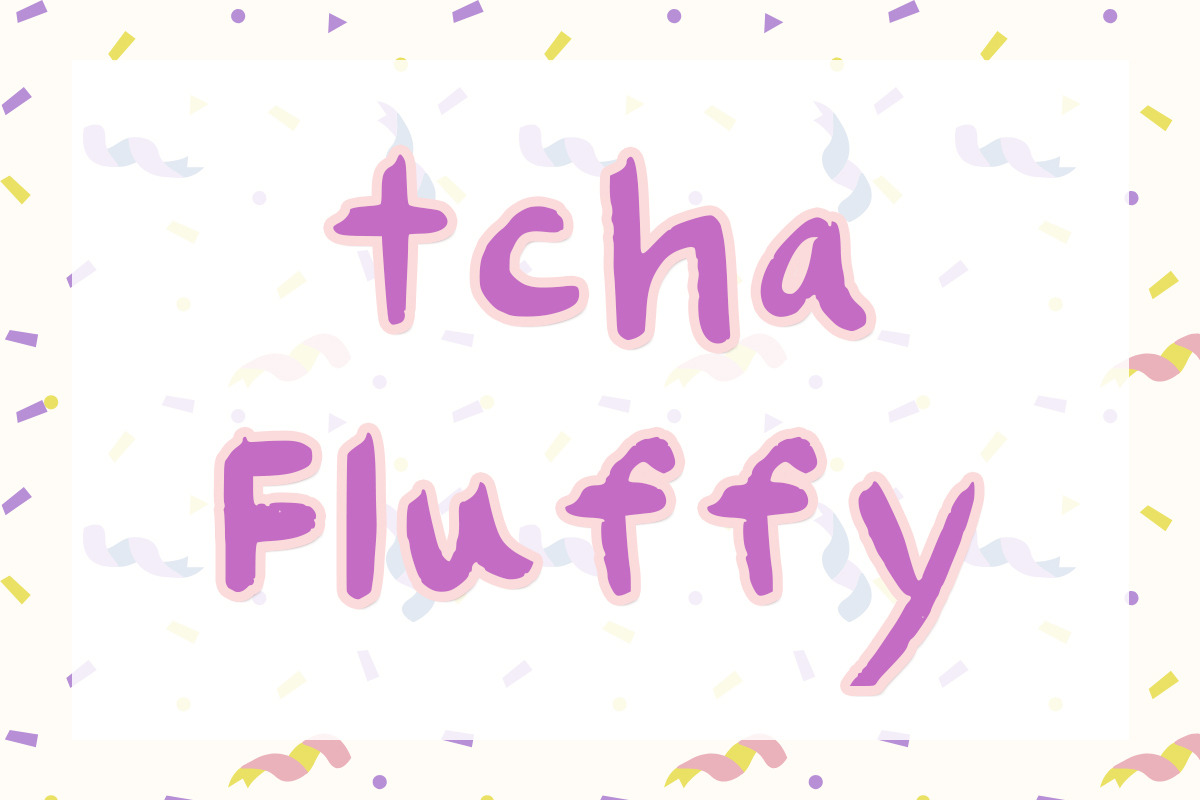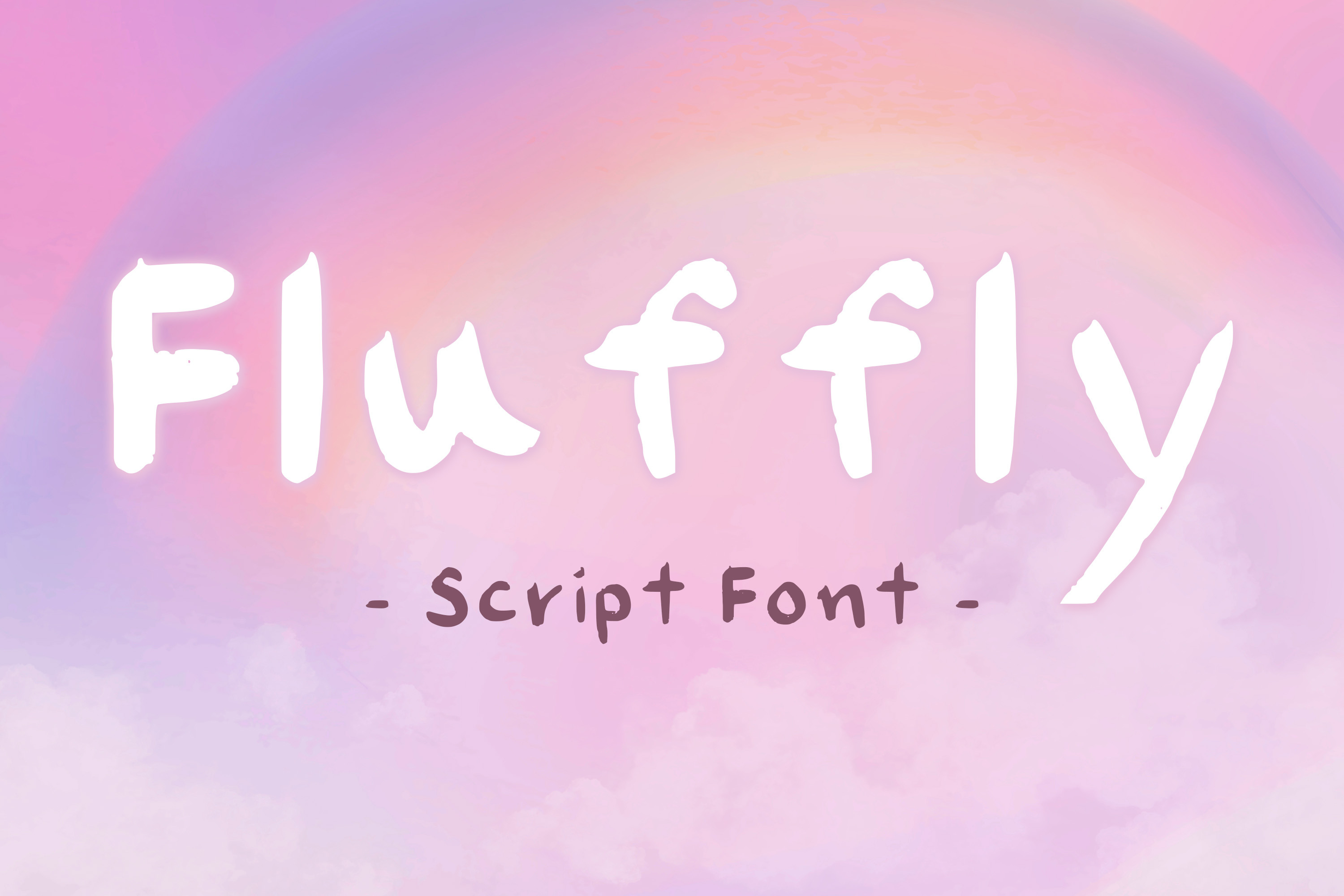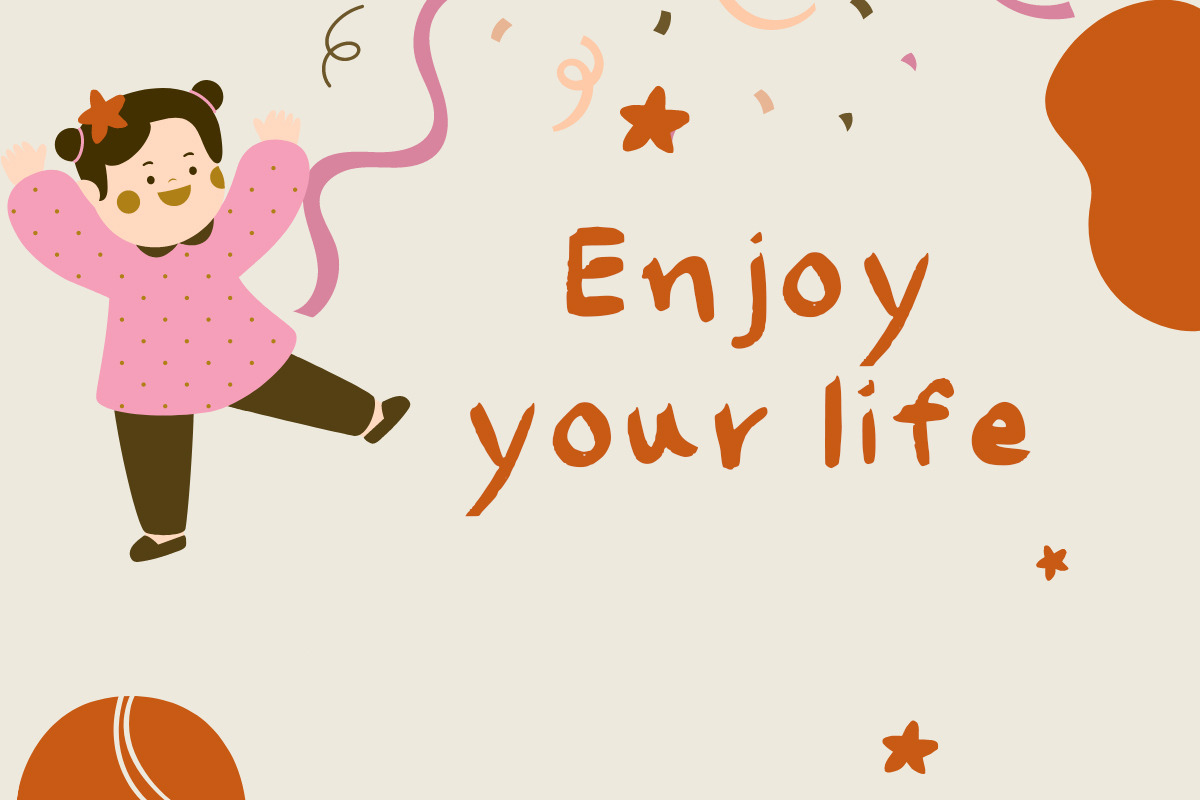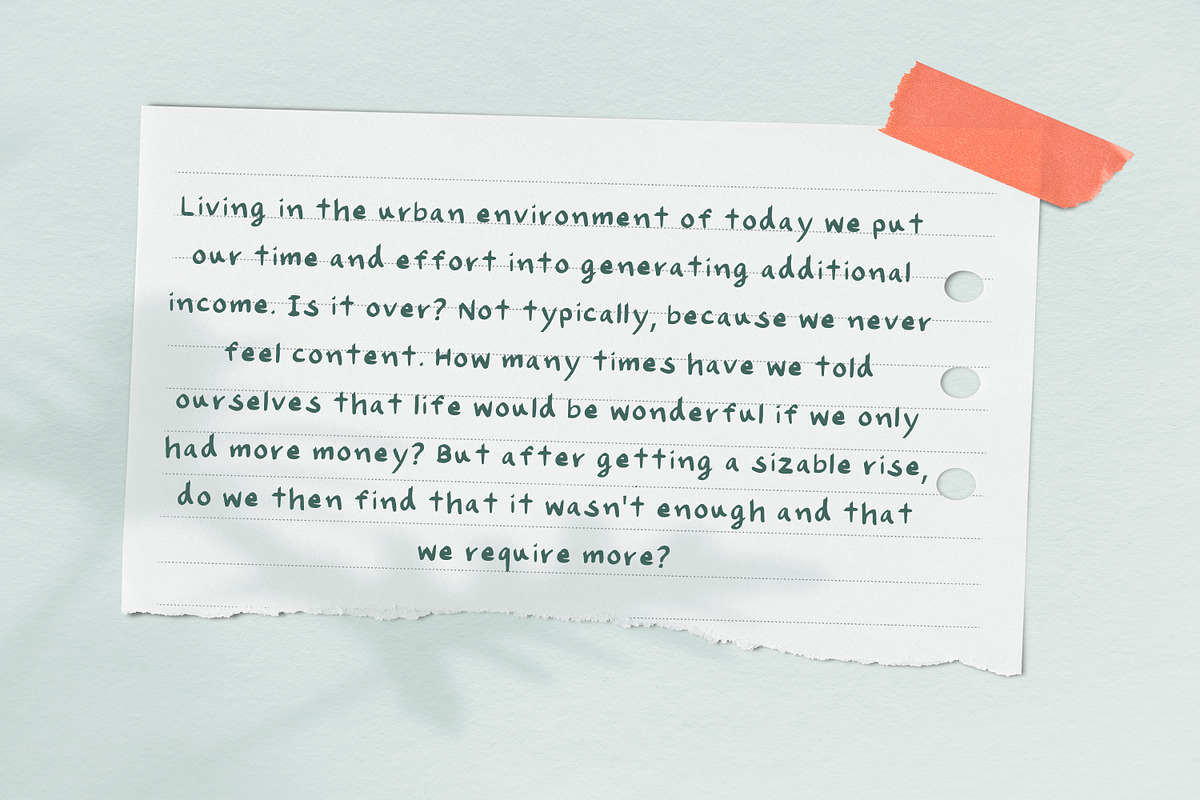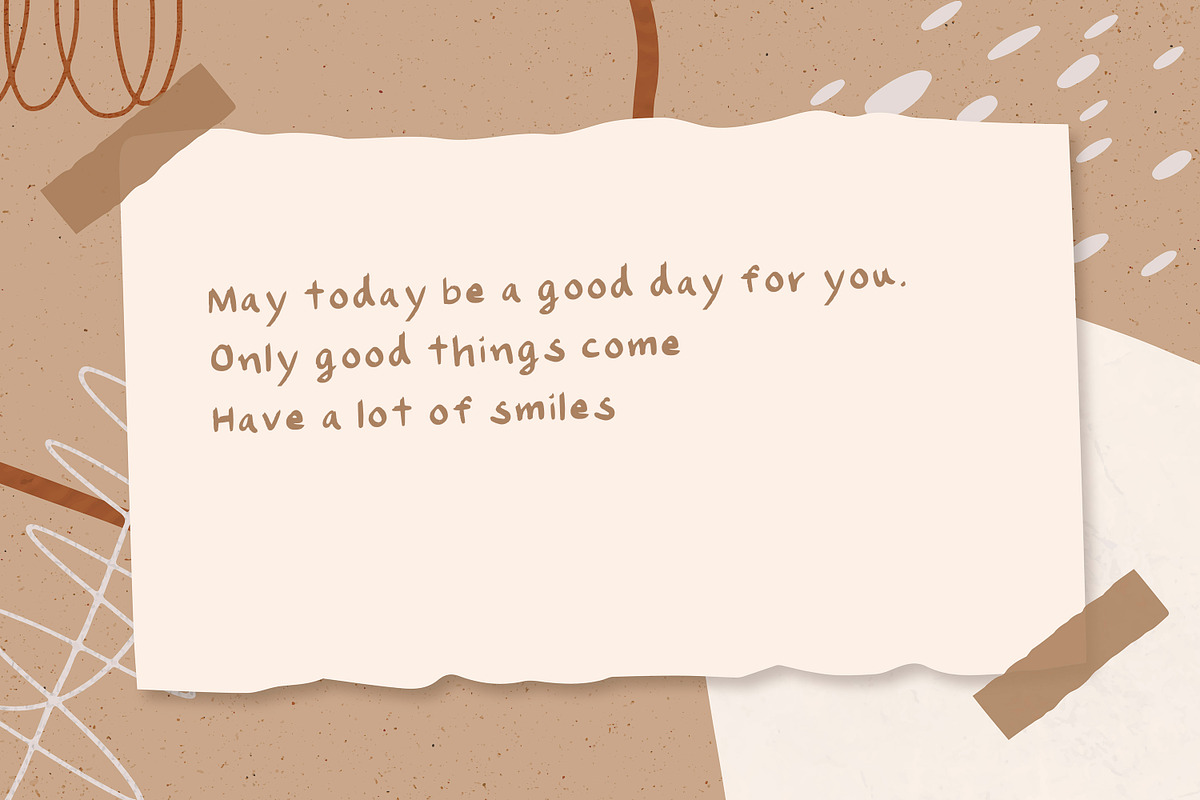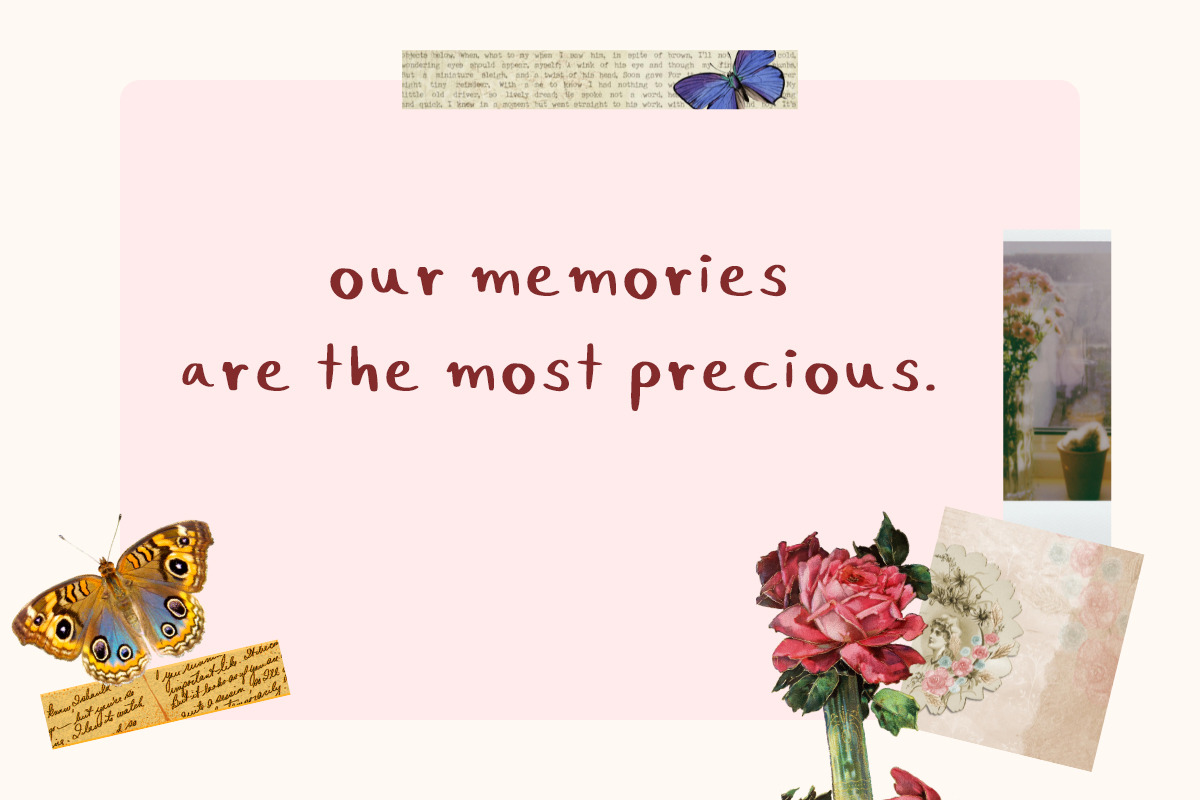
Tcha Fluffy Font
Fluffy is a cute and bold handwritten font. It is suitable for work that requires cuteness or easy-to-read articles. Your options are limitless!